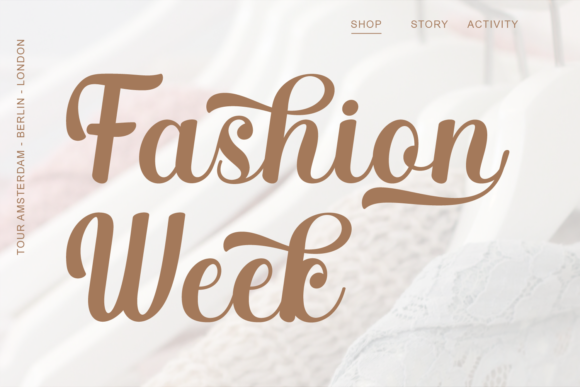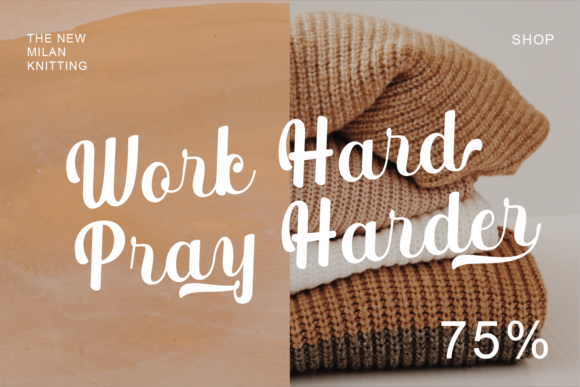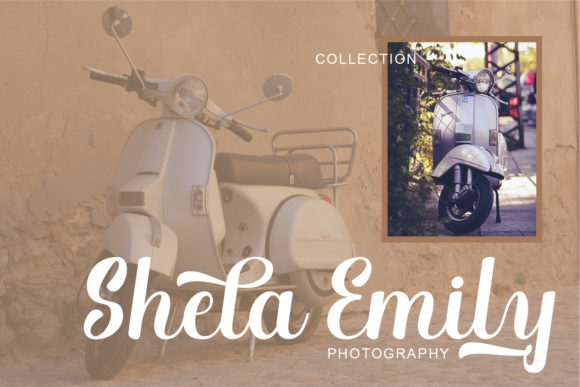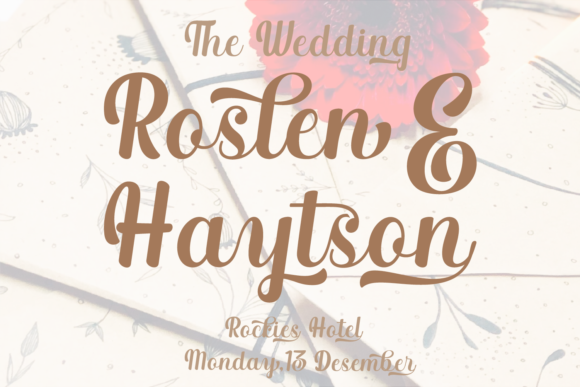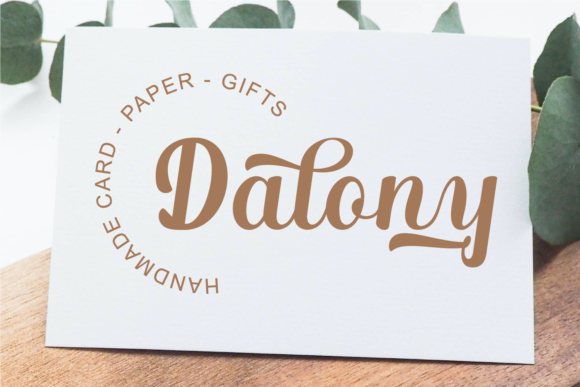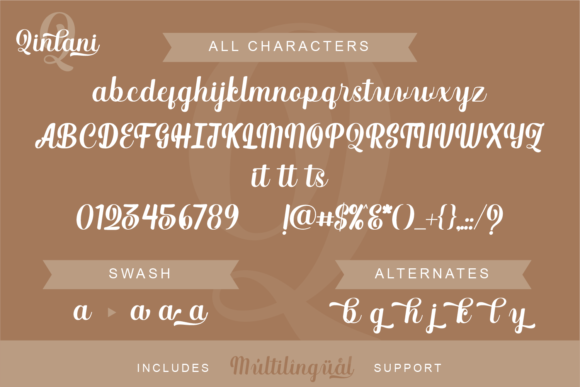
Introduction to Qinlani Font
Have you ever found yourself in a creative moment, staring at a blank canvas, waiting for the perfect idea to strike? For designers, those moments can be the most exhilarating – and the most intimidating. But what if you had the perfect tool to bring your vision to life? Enter the Qinlani Font, a stunning handwritten font that’s about to revolutionize the way you approach your next project.
With its beautiful, bold, and elegant strokes, the Qinlani Font is a game-changer for designers. Created with the help of a paint brush, this high-quality design resource adds a touch of joy and romance to any project. Whether you’re working on a wedding invitation, a restaurant menu, or a social media campaign, the Qinlani Font is sure to elevate your design to the next level.
Key Features of Qinlani Font
- High-quality design resource suitable for creative projects, including graphics, logos, and branding materials.
- Unique and modern design aesthetic, featuring a transparent background that allows for seamless integration with various backgrounds.
- Designed to be easily scalable, ensuring clear readability even at smaller font sizes.
Honest Review: Qinlani Font
I recently had the chance to work with the Qinlani Font, and I’m excited to share my thoughts on this design resource. Overall, I’m quite impressed with its quality and versatility.
- High-quality typography: The Qinlani Font features beautiful, crisp lines and a clean aesthetic, making it perfect for a variety of creative projects.
- Transparent background: This allows for seamless integration with different backgrounds and designs, giving you more creative freedom.
- Limited font weights: The Qinlani Font only comes in a few weights, which may limit its usability in certain design scenarios.
- No italics: Unfortunately, the Qinlani Font does not offer italic versions of its characters.
Overall, I’m quite pleased with the Qinlani Font and would recommend it to designers looking for a high-quality, versatile font for their creative projects. With a bit more variation in font weights and italics, it could be a top choice for designers everywhere.